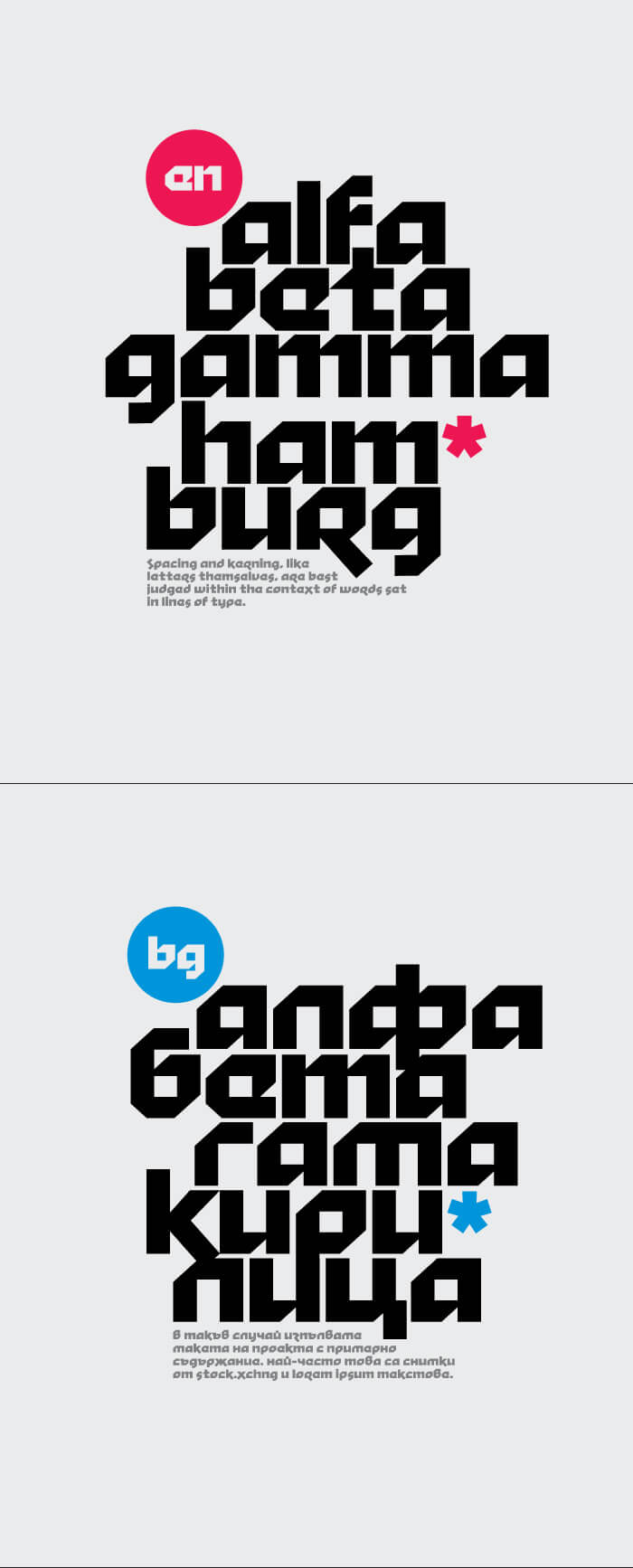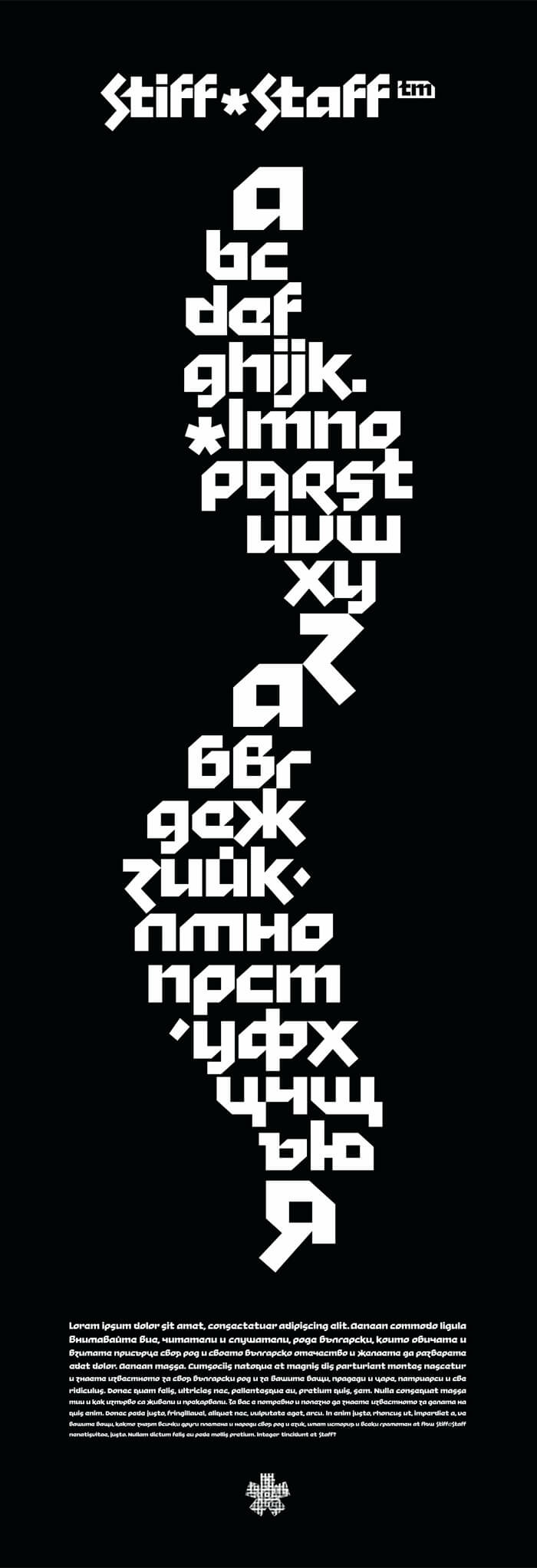
Stiff Staff it’s another free font shared by Fontfabric who are known by their quality fonts, we have shared some of their great resources here. This is a very peculiar font, sans serif strong with straight geometrical lines, it’s quite original with a futurist look. Great for headlines, logos, posters, flyers. It will mark presence becoming easily identified by their specific style.